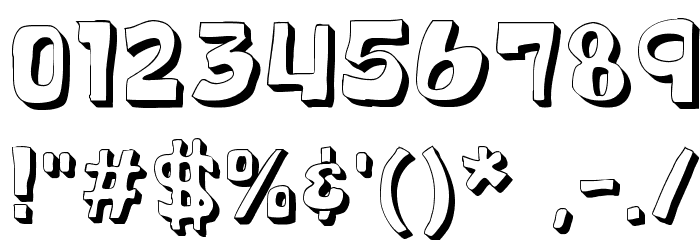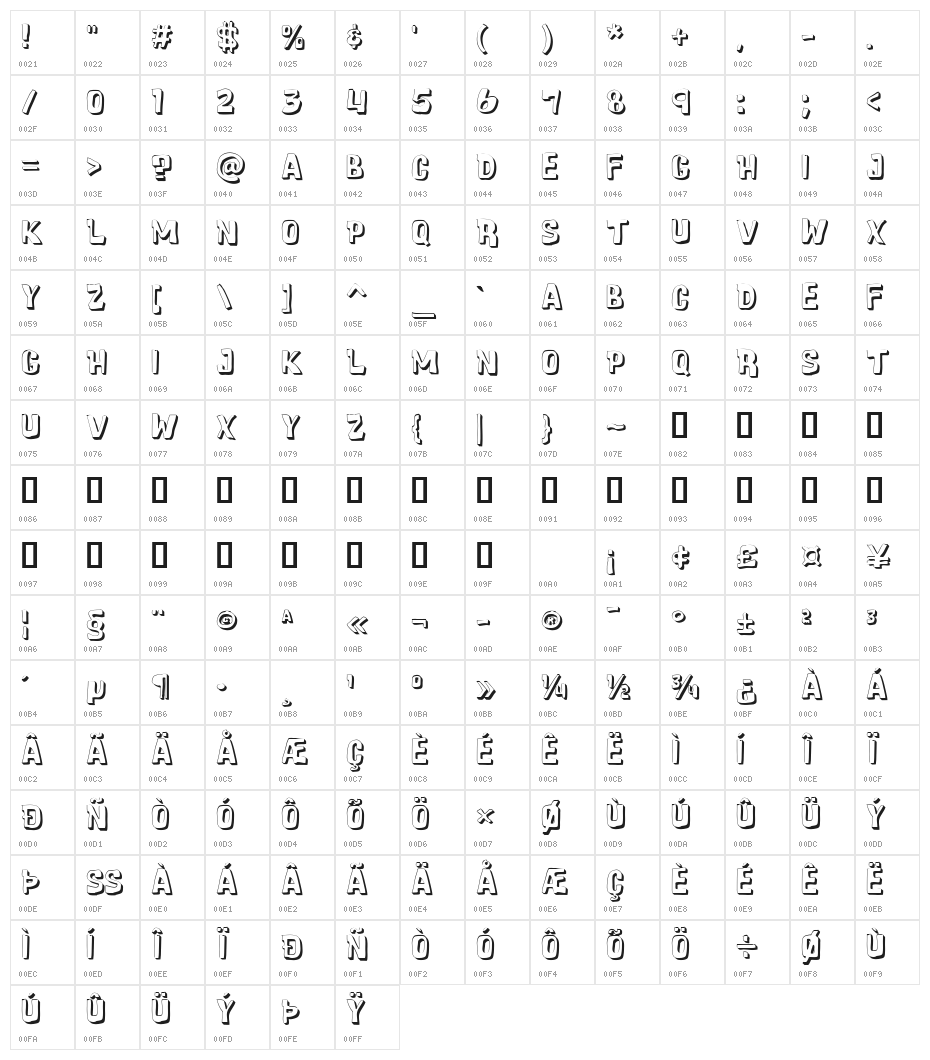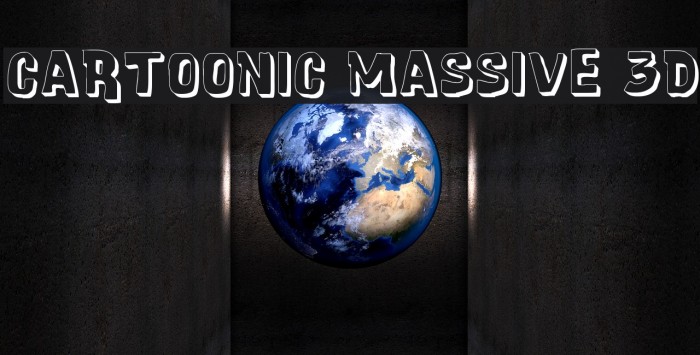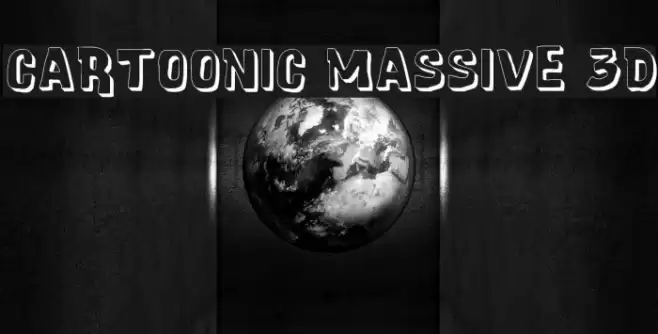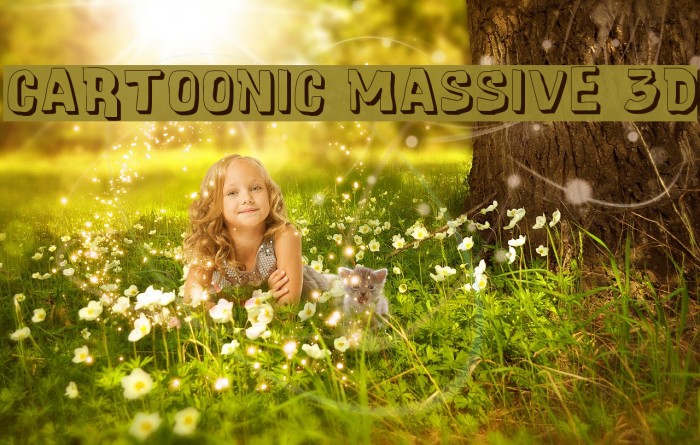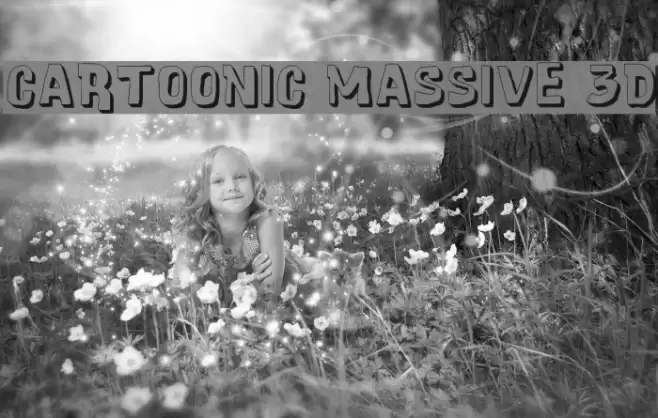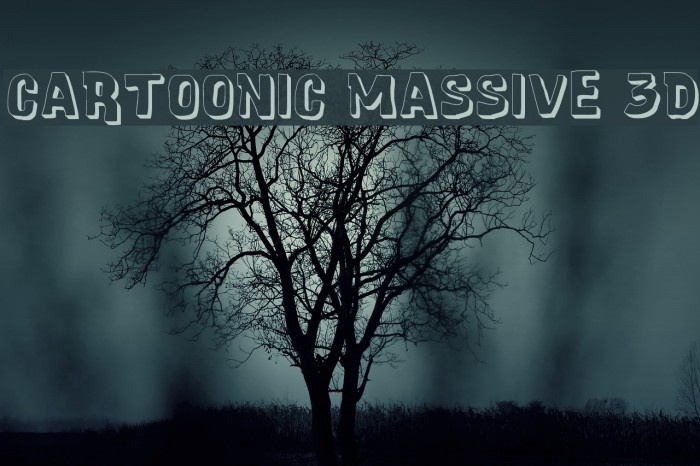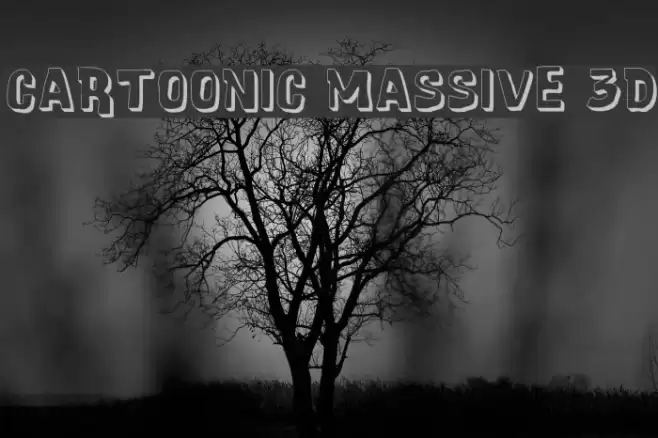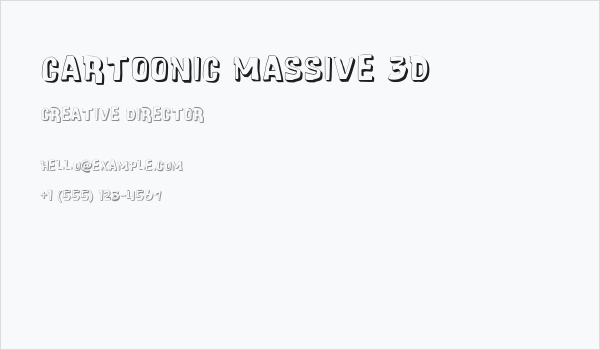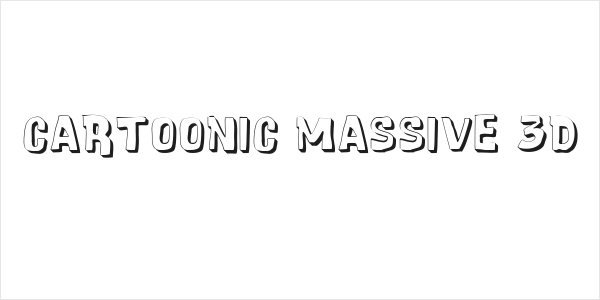
Cartoonic Massive 3D Font
Cartoonic Massive 3D Description
This font features a bold, three-dimensional cartoon style that gives each character a playful and dynamic appearance. The letters are outlined with a thick black border, enhancing their 3D effect and making them stand out prominently. The interior of each character is filled with a solid white, providing a stark contrast against the outline. The font maintains a consistent height and width across all characters, ensuring uniformity. Its exaggerated, chunky forms and whimsical design make it ideal for projects that require a fun and engaging visual impact.
Overall StyleCartoonish, Playful
Proposed ProjectsIdeal for children's book covers, comic strips, playful branding, and eye-catching posters.